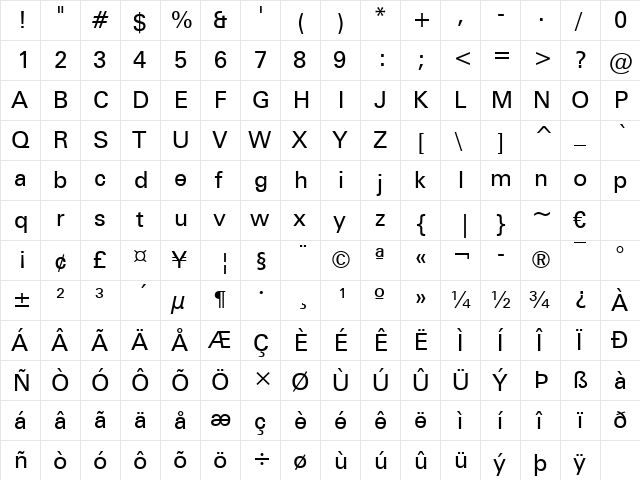
Zurich WGL4 BT Roman
Design Context for Zurich WGL4 BT Typeface
Zurich WGL4 BT is a composed and adaptable typeface that performs quietly and consistently across a wide range of design contexts.